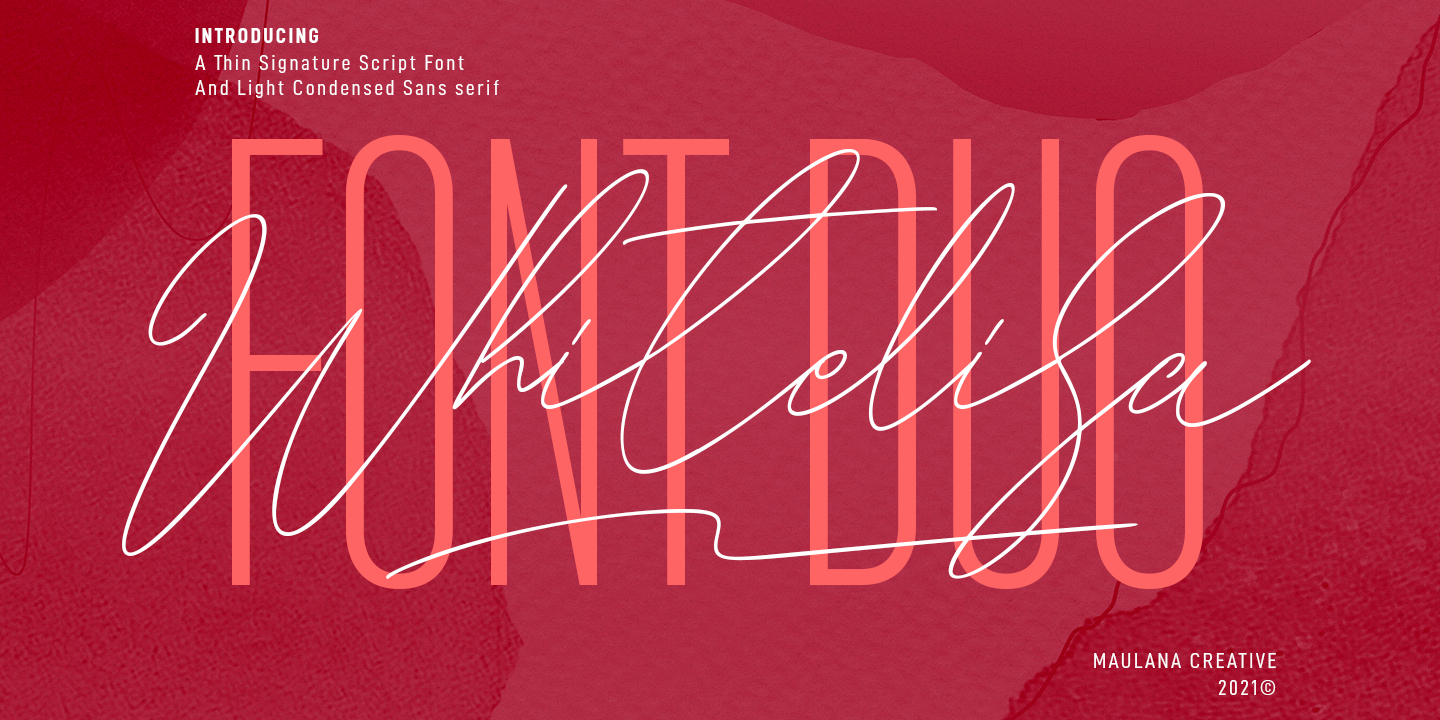
Whitelisa Script And Sans Font Duo is perfect for elegant wedding stationery, luxury brand identity systems, sophisticated boutique marketing, premium lifestyle blogs, high-end beauty salon communications, refined fashion label branding, upscale restaurant materials, and exclusive event planning services. This versatile typeface combination excels in applications where feminine elegance, sophisticated versatility, and harmonious design are essential for creating cohesive brand experiences that connect with audiences who appreciate refined aesthetics and coordinated luxury design elements.
What makes Whitelisa Script And Sans Font Duo so exciting is its perfect harmony between flowing script elegance and clean sans serif functionality that captures the essence of sophisticated brand versatility and coordinated design excellence. The script features graceful, feminine letterforms with elegant flourishes, while the sans serif provides clean, readable support text capabilities. This complementary character conveys refinement, versatility, and design sophistication - essential qualities for brands serving luxury markets and discerning clientele who value coordinated typography systems, elegant script accents, and the professional flexibility of complete font families.
The Whitelisa Font Duo includes comprehensive weight ranges and stylistic variations across both script and sans serif styles that provide complete branding solutions. The script versions feature elegant swashes and decorative alternates perfect for headers and signatures, while the sans serif variants offer multiple weights for body text, ensuring optimal readability and design flexibility for professional luxury applications and commercial sophisticated branding systems.
Whether you're developing complete brand identity systems, designing wedding collections, or creating marketing campaigns for luxury services, Whitelisa Script And Sans Font Duo Free Download provides the elegant versatility your project requires. The duo's sophisticated character makes it particularly effective for brands targeting refined audiences who appreciate coordinated design systems, feminine elegance, and the seamless integration of script beauty with functional sans serif clarity.
Design with elegant harmony using Whitelisa Script And Sans Font Duo and create sophisticated brand communications with typography that perfectly balances flowing script grace with clean sans serif functionality.